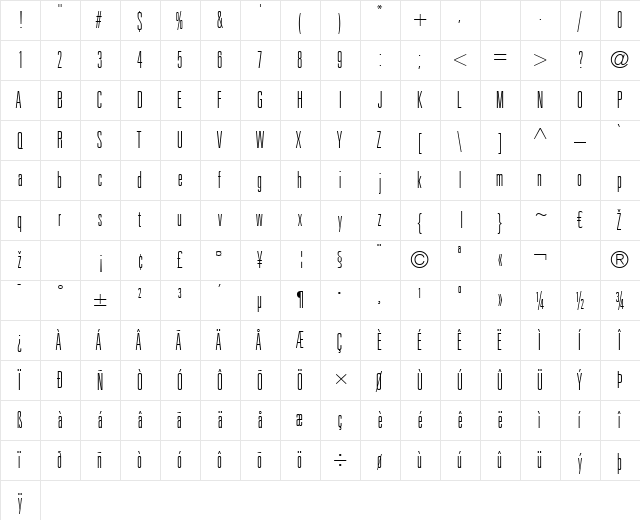
Univers LT 39 ThinUltraCn Regular Font Preview
Univers LT 39 ThinUltraCn Regular
Design Context for Univers LT 39 ThinUltraCn Typeface
Univers LT 39 ThinUltraCn is a composed and adaptable typeface that performs quietly and consistently across a wide range of design contexts. Its slender proportions lend an understated elegance to any composition.